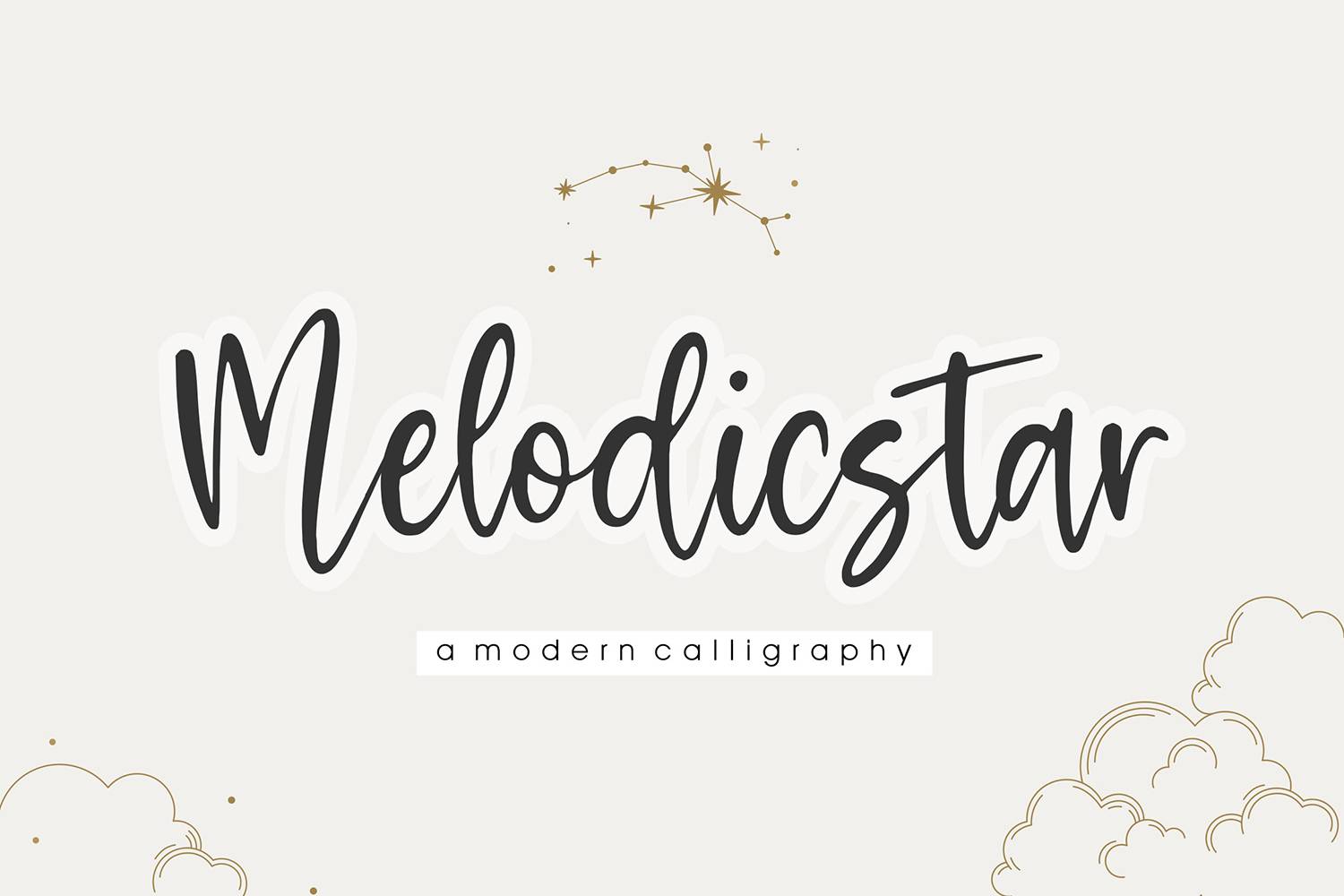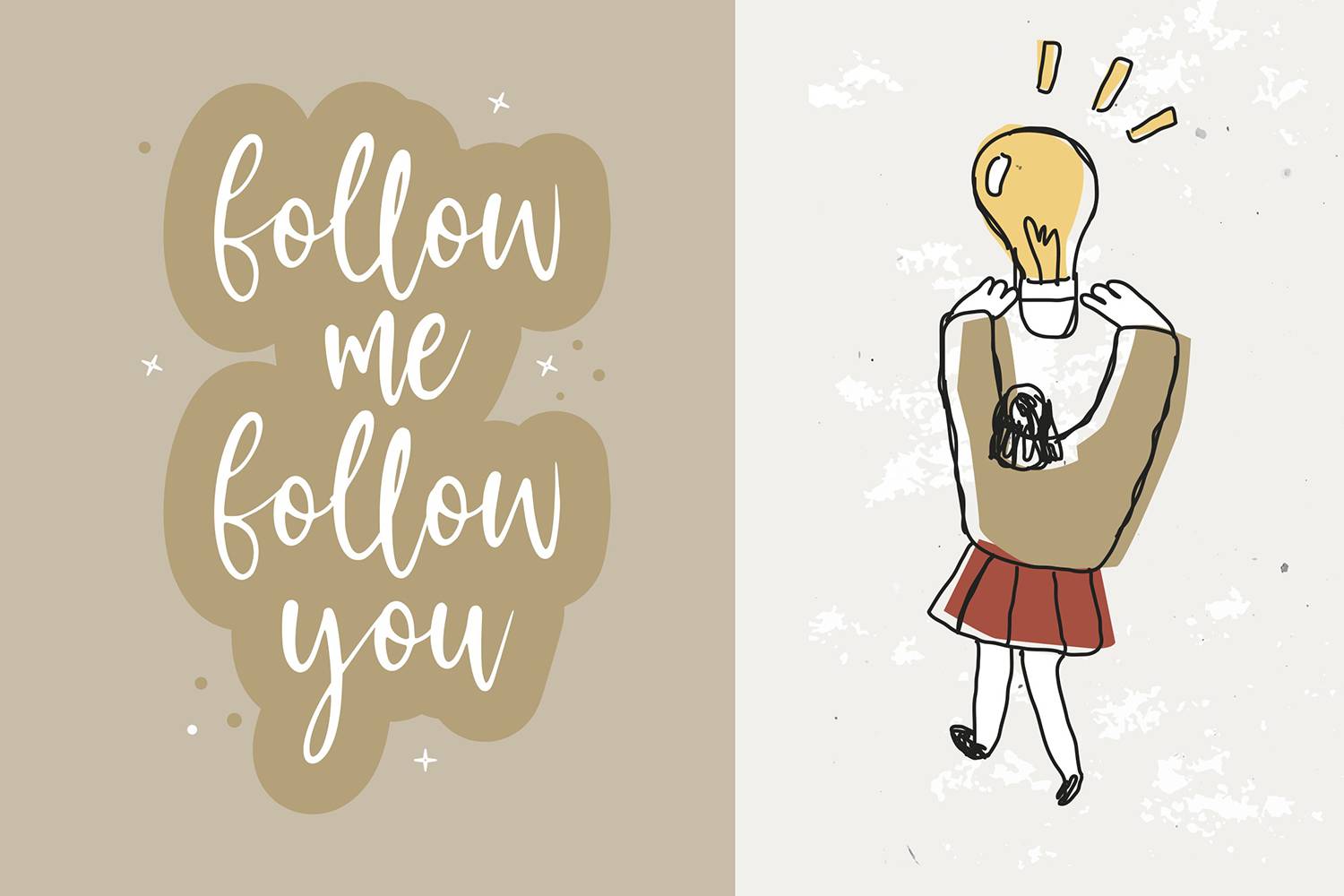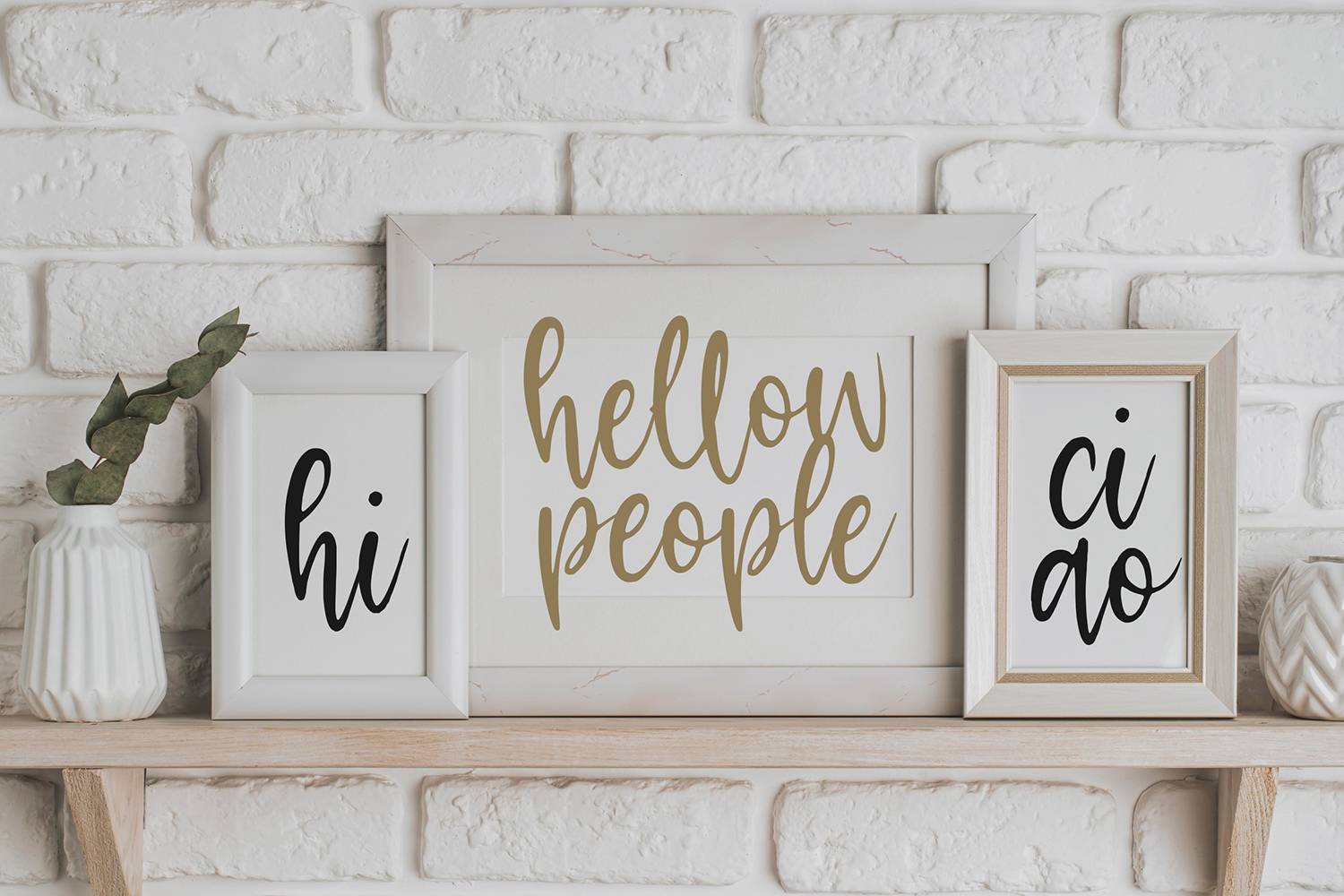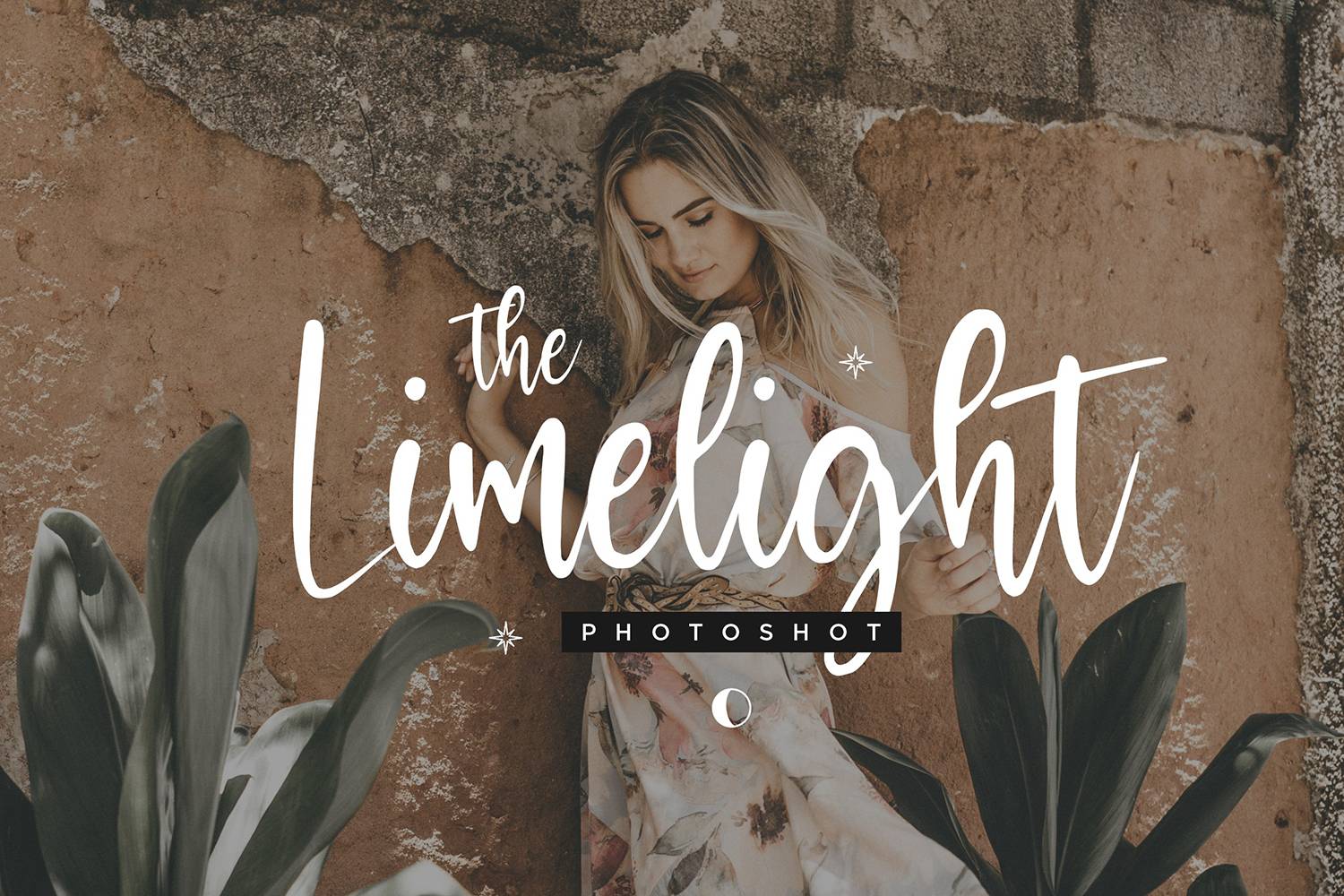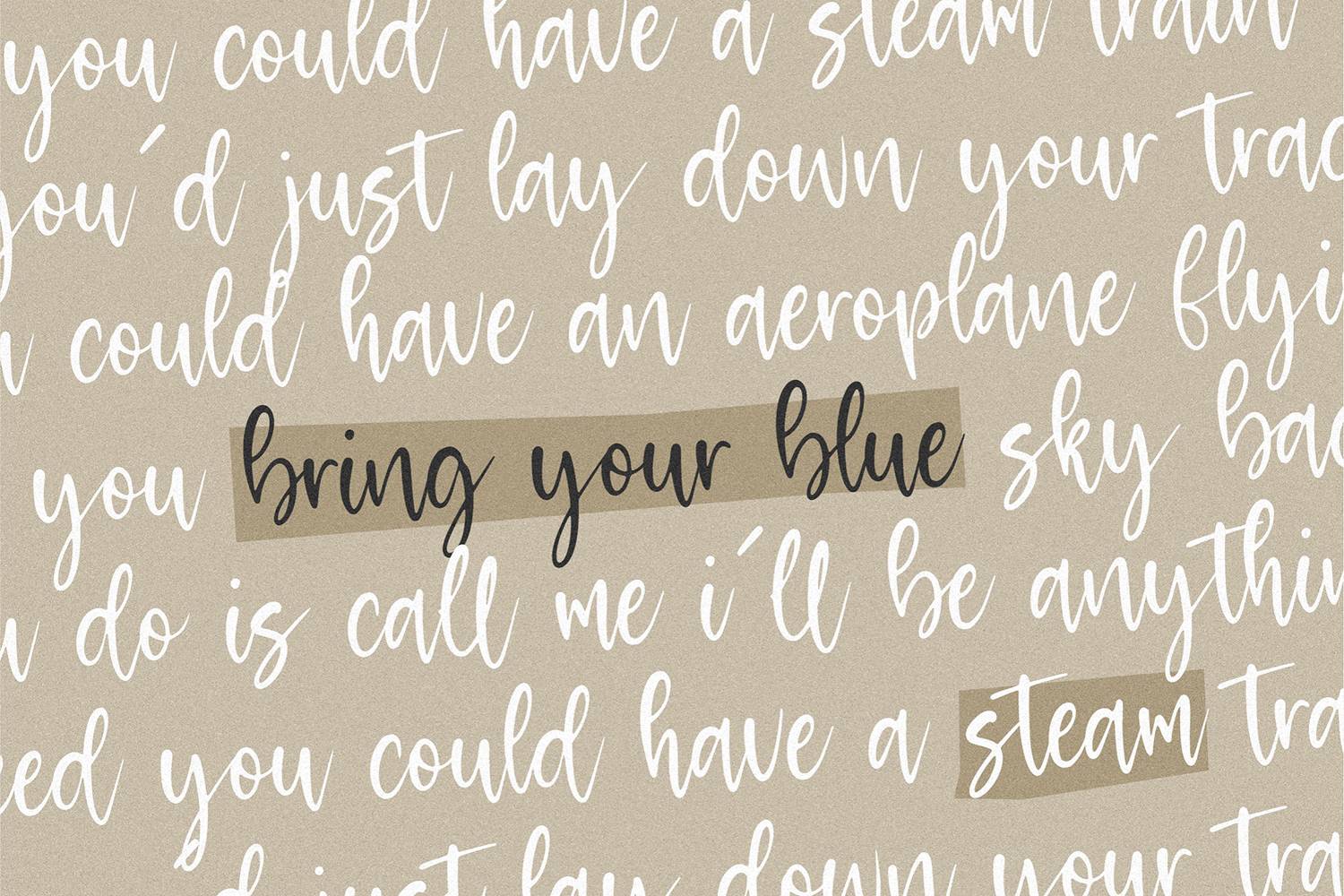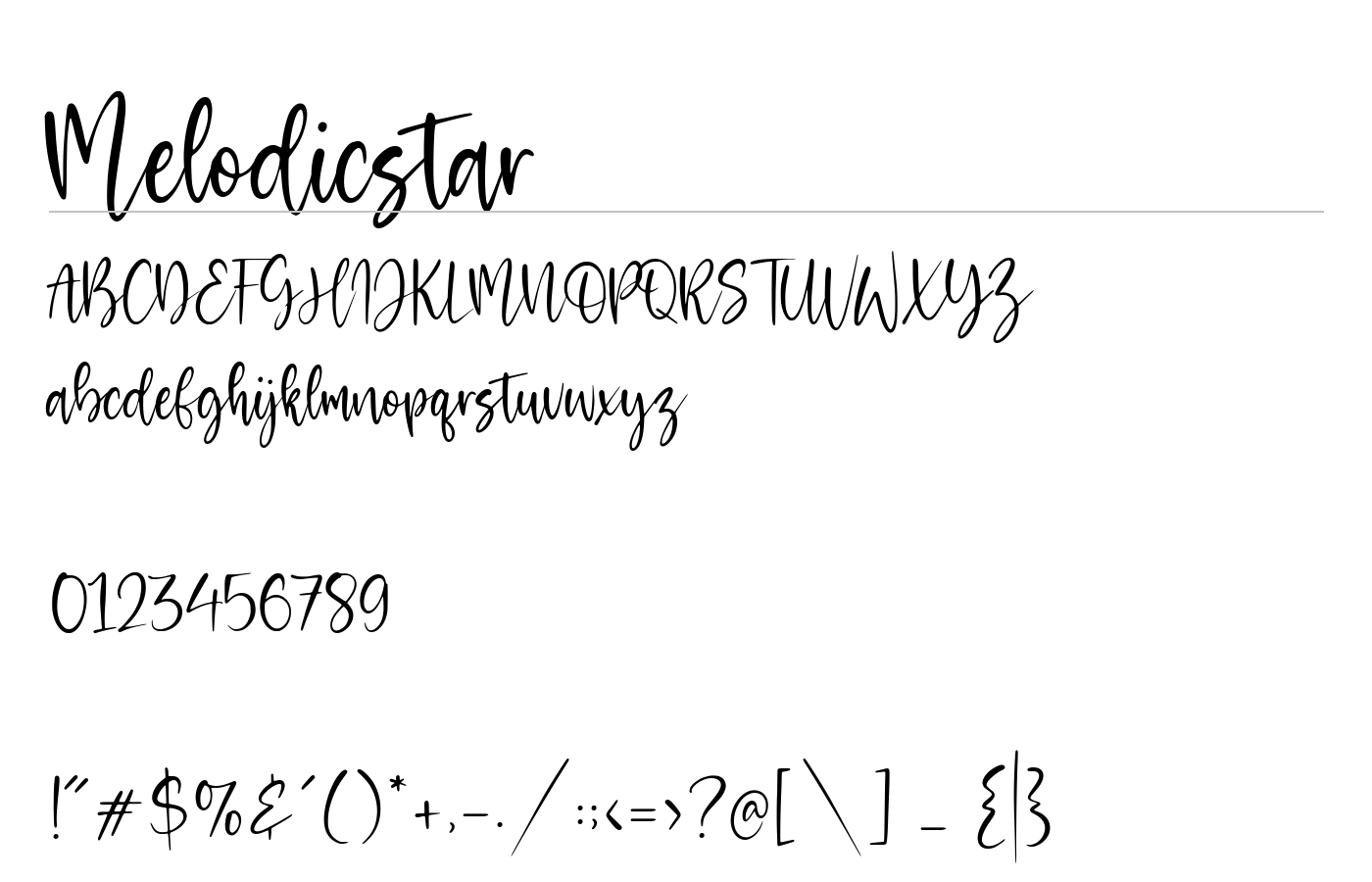
Melodicstar is a delicate, handwritten script font with a modern and playful vibe, featuring tall, slender letterforms and smooth, flowing strokes. Its casual yet elegant style makes it perfect for projects that need a personal, whimsical touch, such as invitations, branding, and social media graphics. This font works well in creative and informal contexts where a light, artistic feel is desired.
Melodicstar Font
About Melodicstar Font